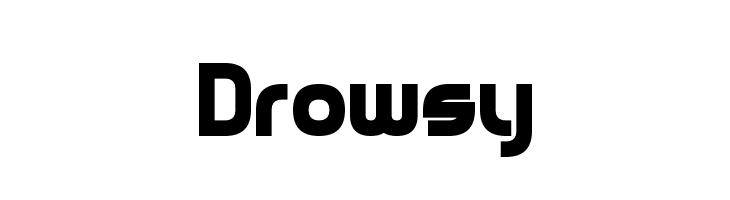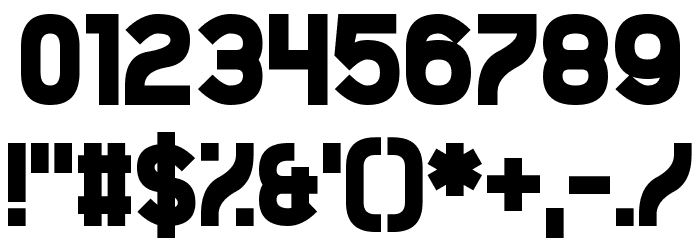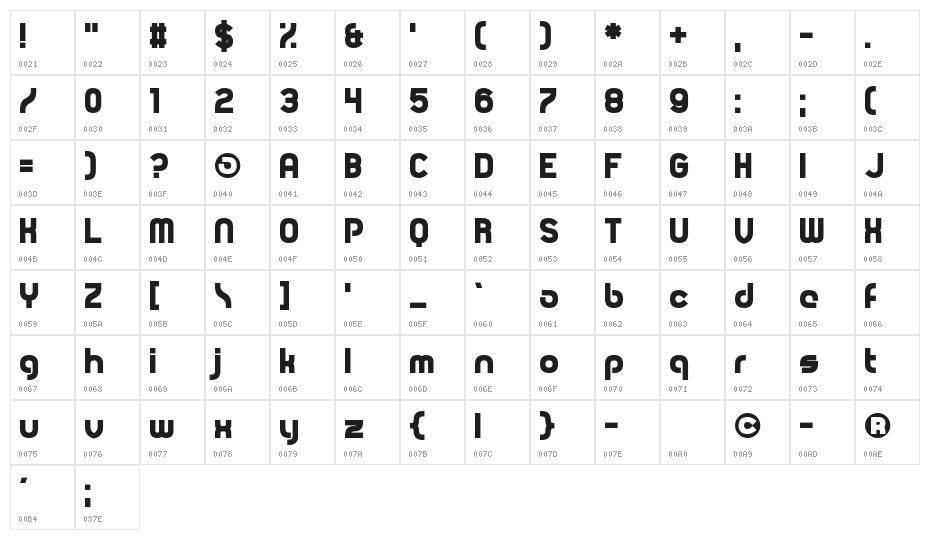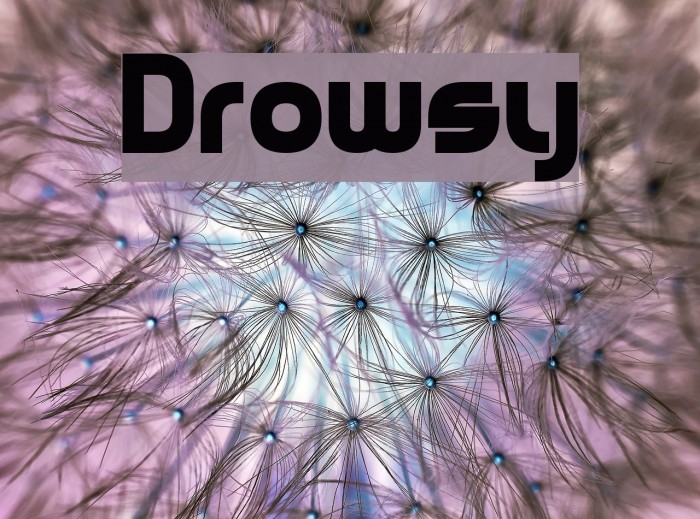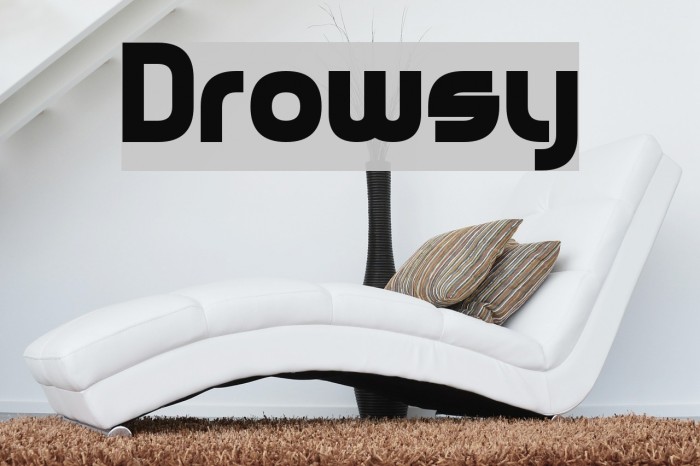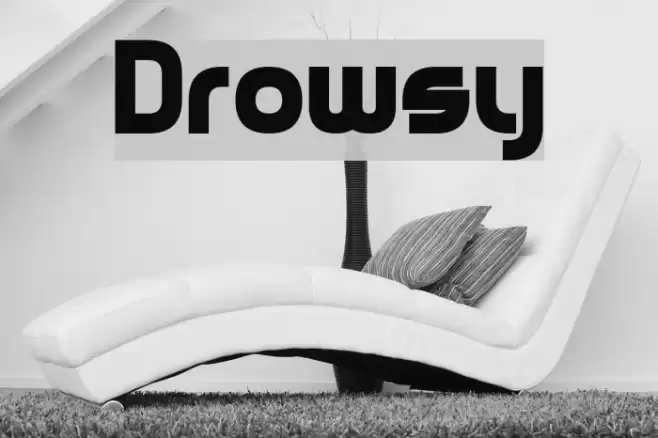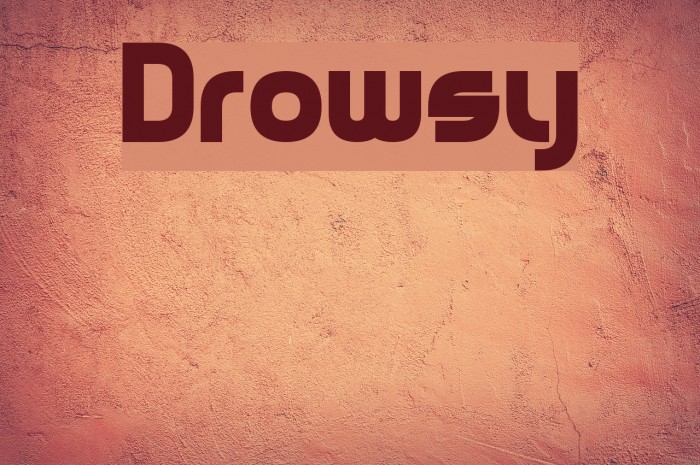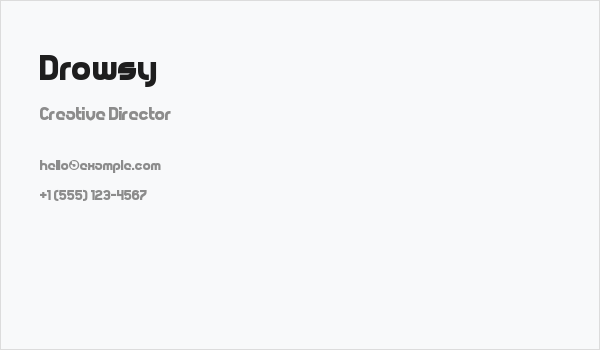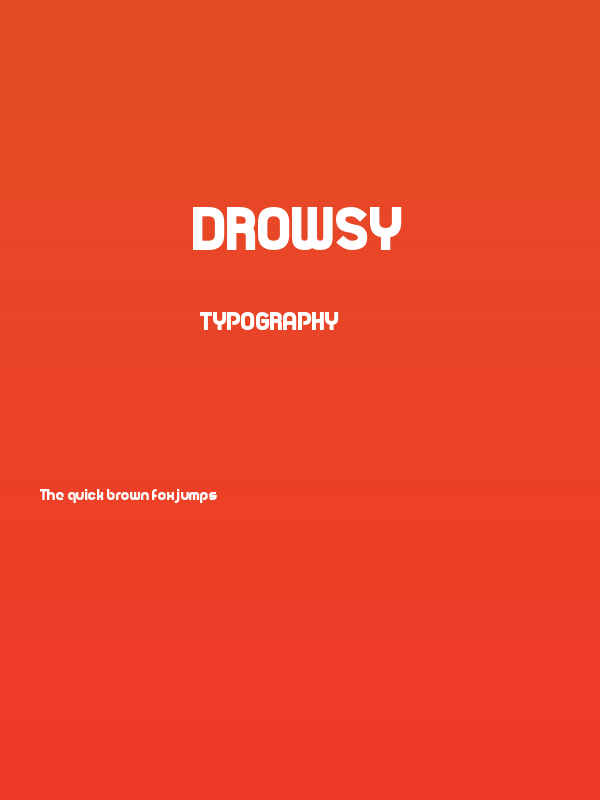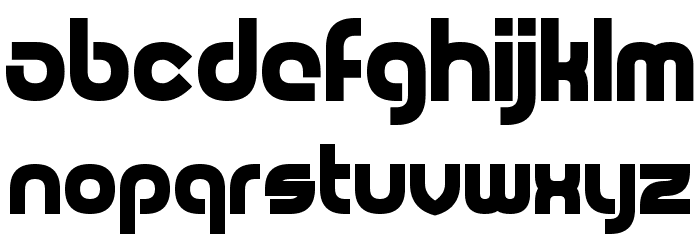
Drowsy Font
Drowsy Description
This font features a bold and geometric design with a modern flair. The characters are constructed with thick strokes and rounded edges, giving it a strong and approachable appearance. The uppercase letters are uniform in height, while the lowercase letters maintain a consistent baseline, enhancing readability. The numerals are equally bold, ensuring they stand out in any context. Special characters are designed to match the overall style, providing a cohesive look across all glyphs. The font's structure is clean and uncluttered, making it suitable for various design applications.